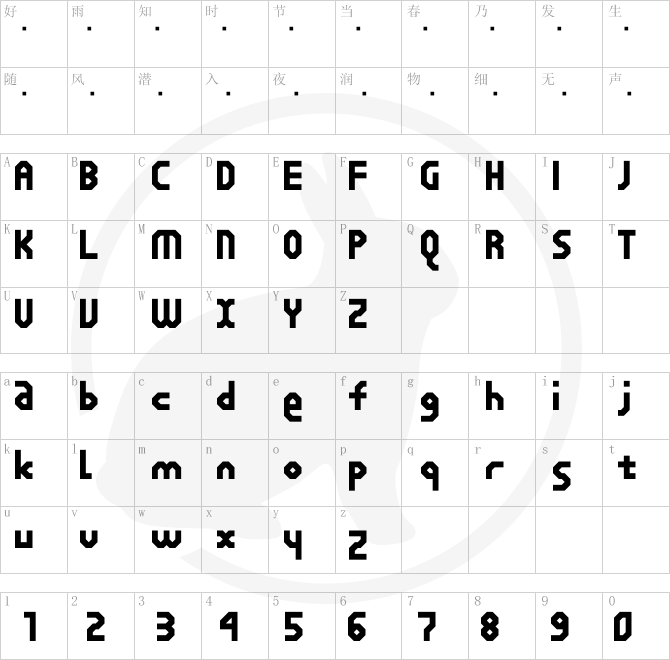
- Font Name:D3 Beatmapism Neo
D3-Beatmapism-Neo.ttf is a very beautiful artistic font, D3-Beatmapism-Neo.ttf is widely used in the design and printing of various books and pictures,D3-Beatmapism-Neo.ttf has a strong visual impact,D3-Beatmapism-Neo.ttf is a commonly used font in newspapers, magazines and books, and is used in posters, e-commerce Poster design, store design, logo design, font design and other fields.D3-Beatmapism-Neo.